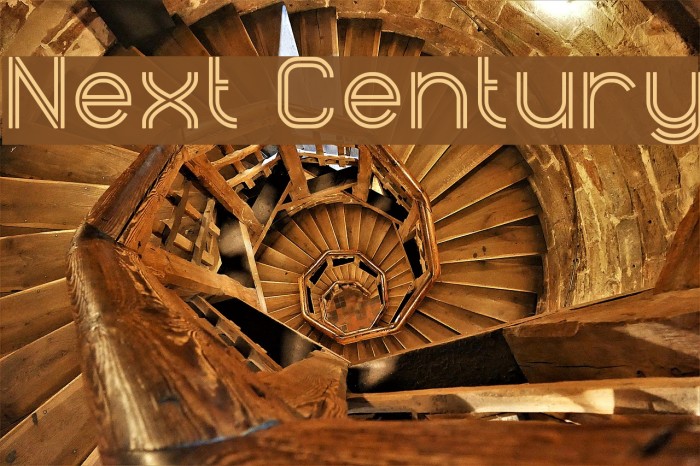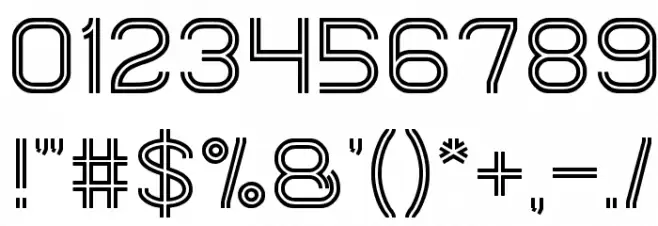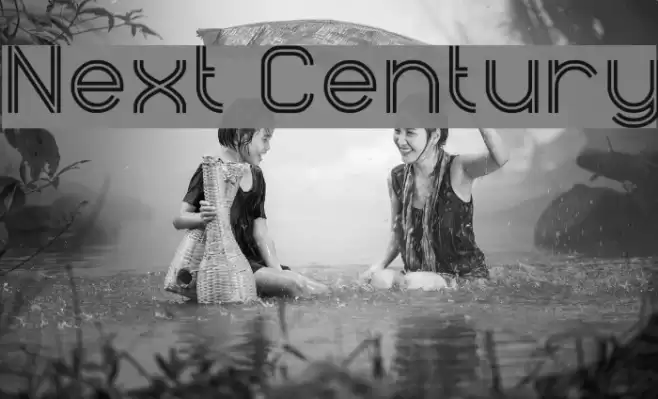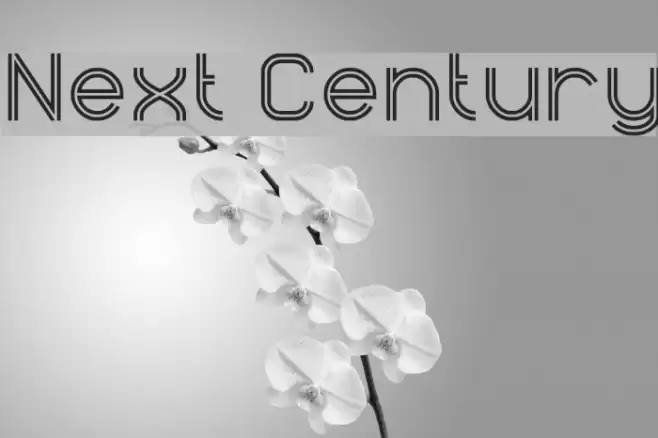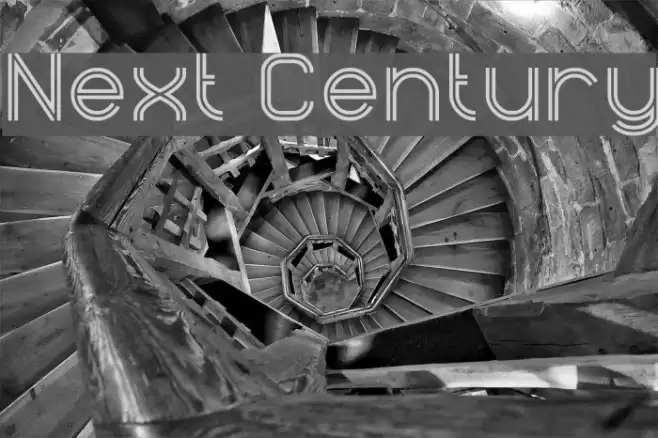
Next Century Font
This font features a futuristic and geometric design with a unique double-line structure that creates a sense of depth and dimension. The uppercase and lowercase letters maintain a consistent style, characterized by clean, straight lines and rounded edges. The numerals and special characters follow the same design principles, ensuring uniformity across all glyphs. The font's modern aesthetic is ideal for projects that require a contemporary and innovative look, making it suitable for technology-related branding, digital interfaces, and creative advertising. Its distinct appearance ensures that it stands out, while still maintaining readability.
A futuristic, geometric font with a double-line structure and modern appeal.
- Proposed Projects: Ideal for technology branding, digital interfaces, creative advertising, and futuristic designs.